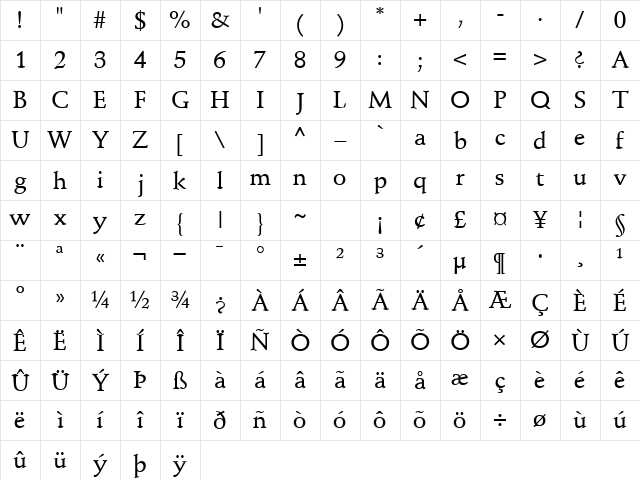
DeutchMediumSSK Normal
Design Context for DeutchMediumSSK
DeutchMediumSSK is a composed and adaptable typeface that performs quietly and consistently across a wide range of design contexts.